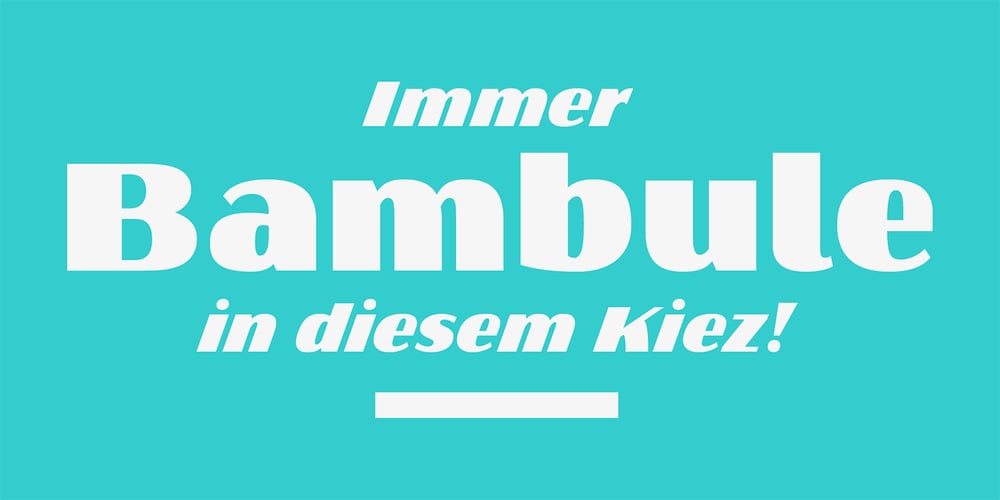
Kiez Font Family was designed by Elena Albertoni and published by Groupe Dejour. Kiez contains 2 styles and family package options. The “Kiez“ is an old school style font designed by Elena Albertoni in 2016. Inspired by shop and bar signage of the sixties and seventies, which can still be found today in the so called “Kiez“ in Hamburg St. Pauli or in one or another “Kiez“ in Berlin, which means neighborhood here. It also has a cinematic touch, again: think of the sixties and seventies or your favorite b-movie.